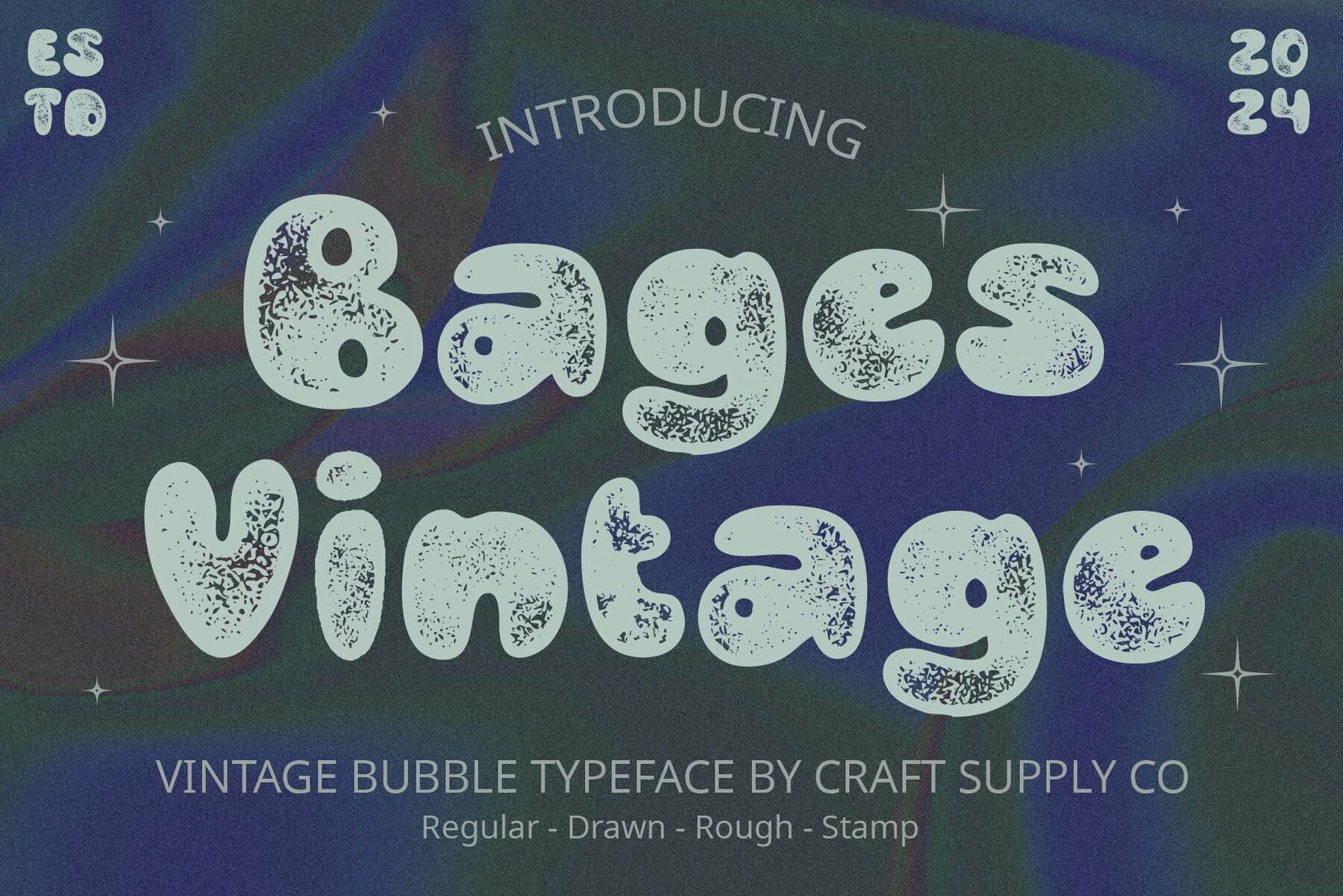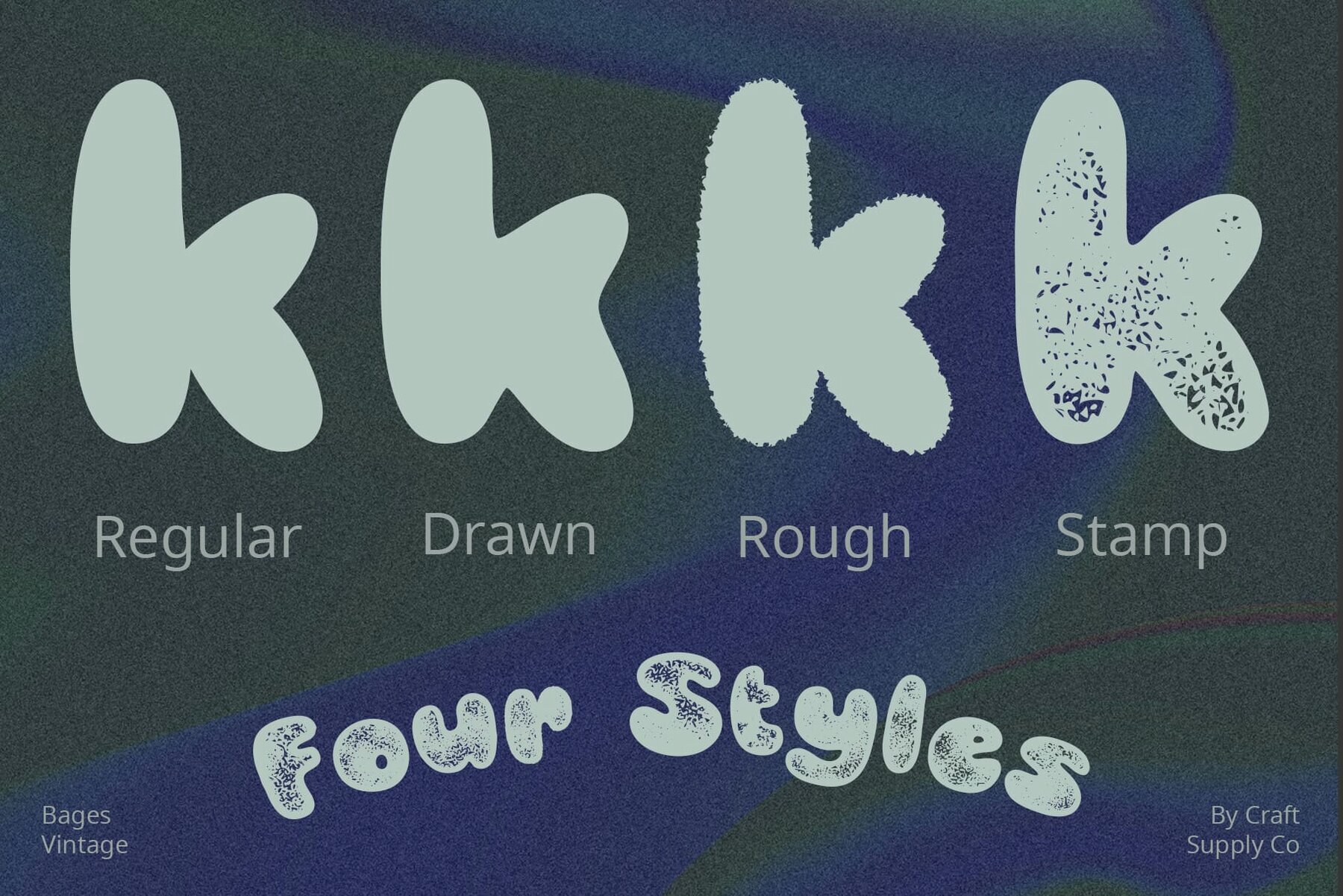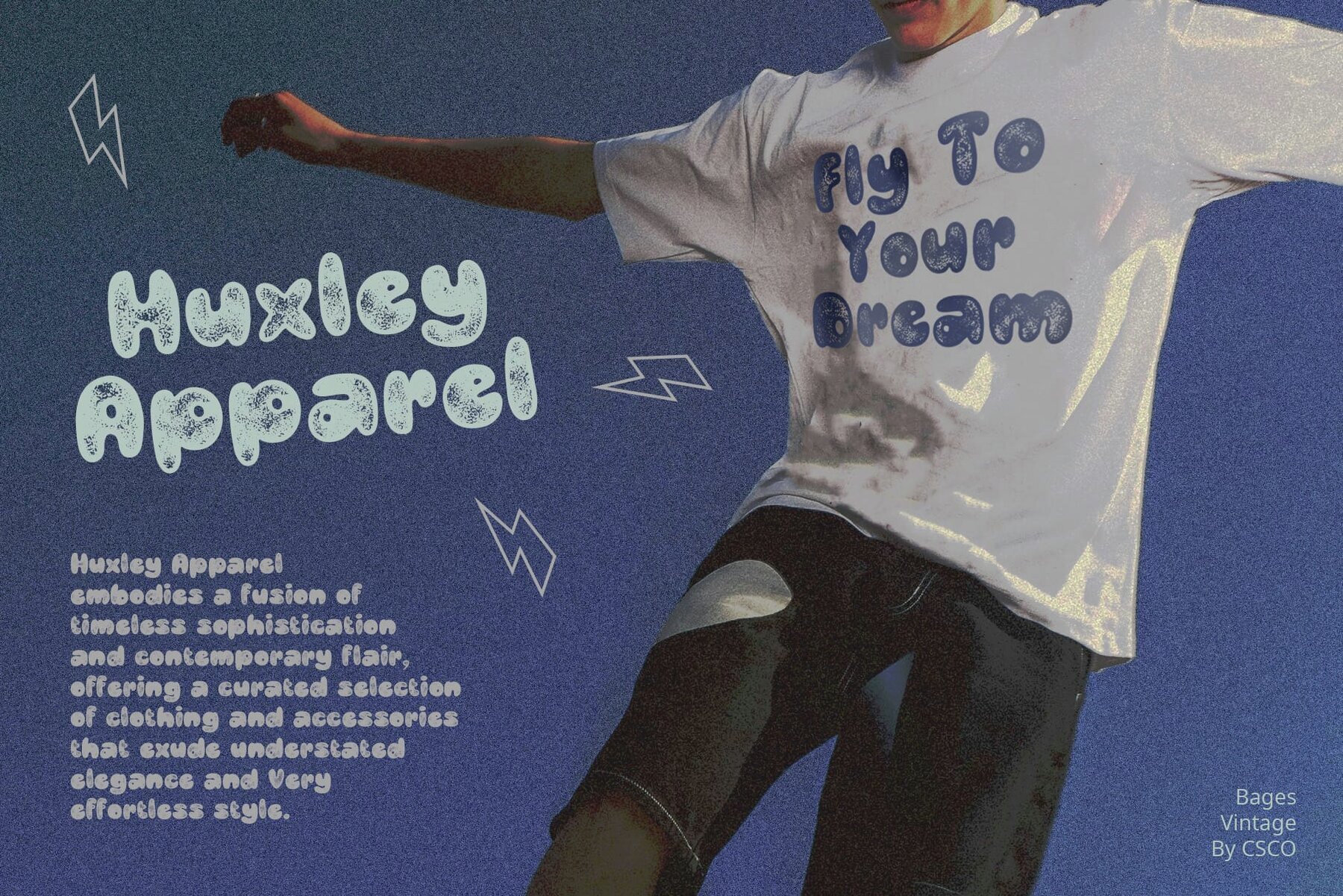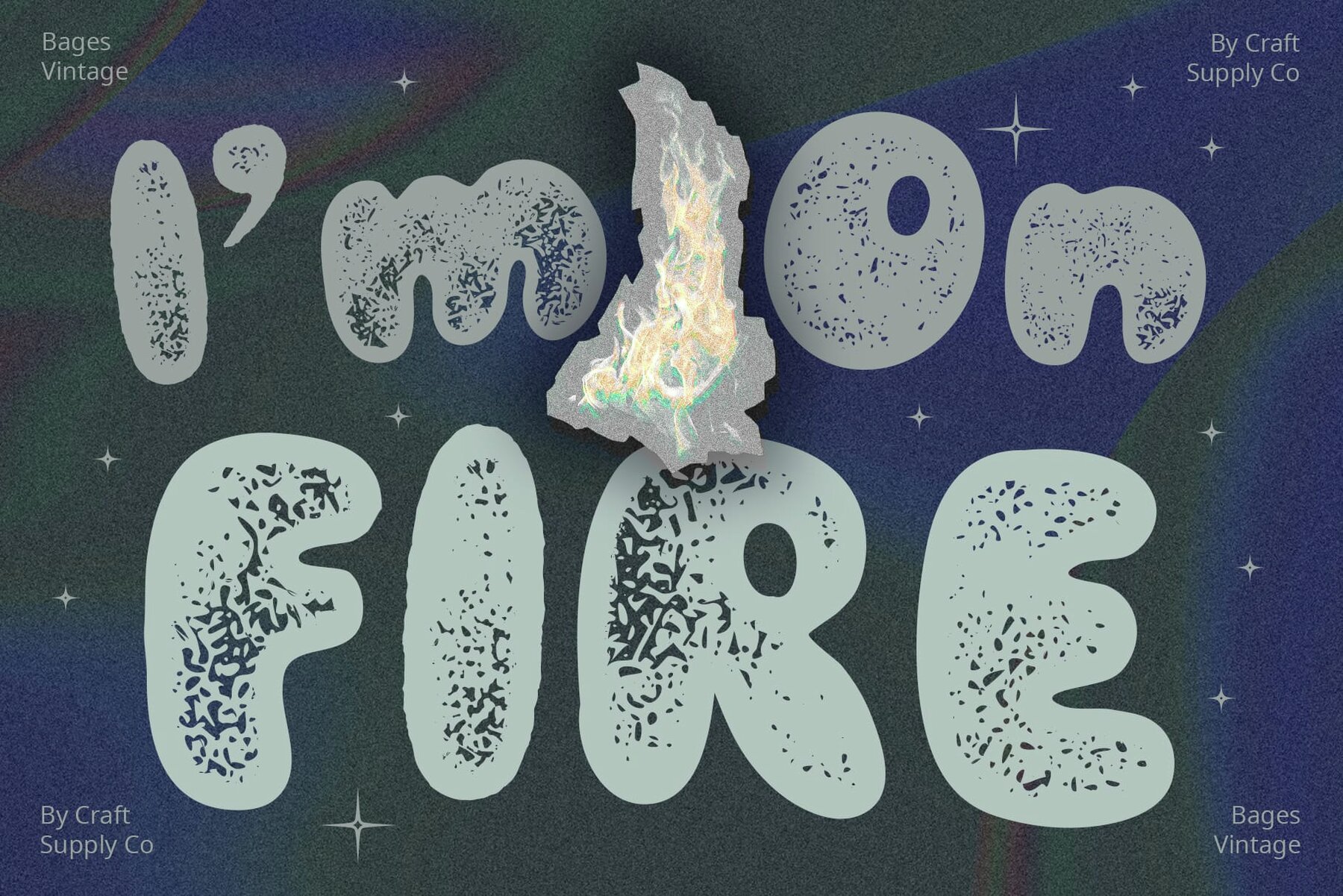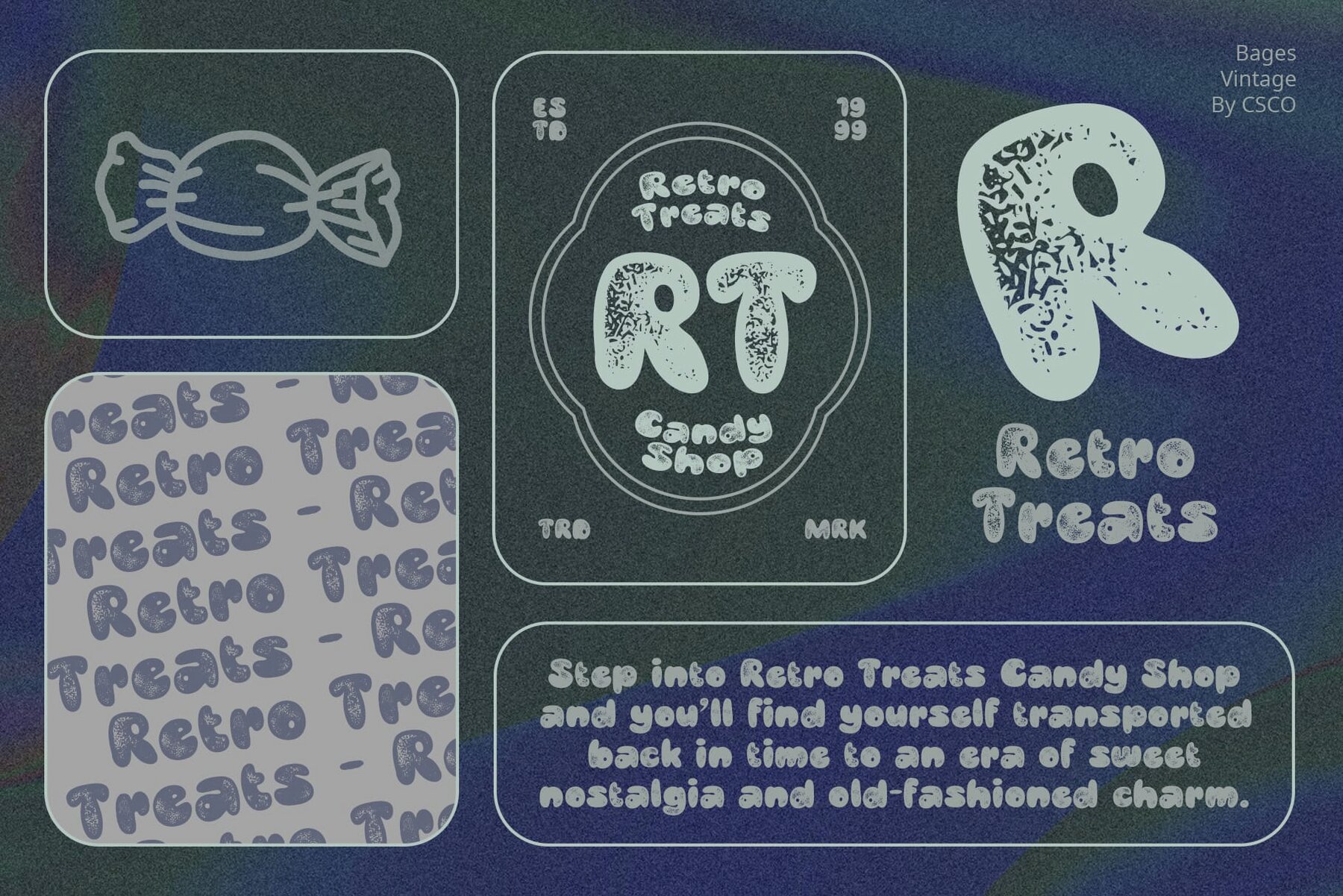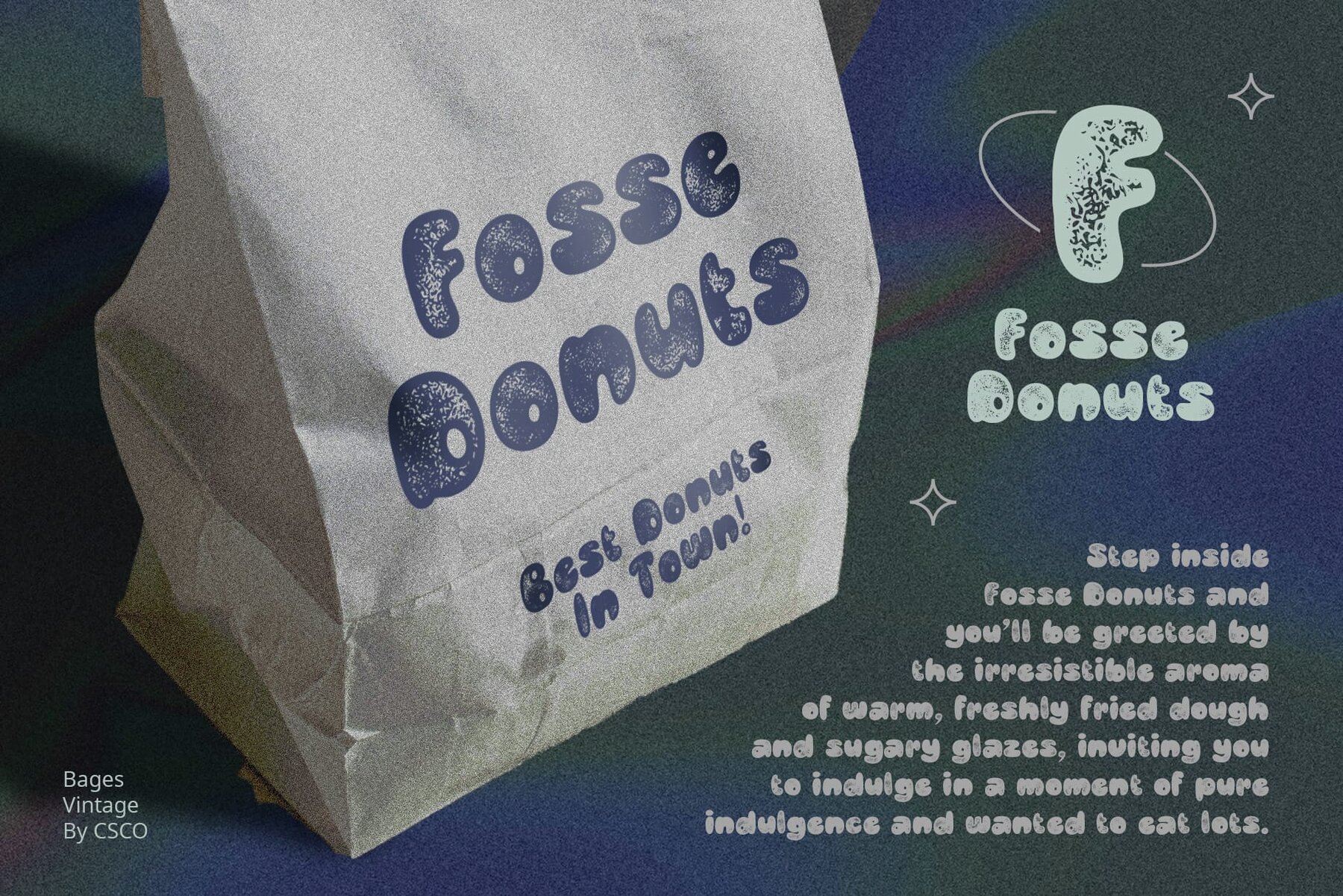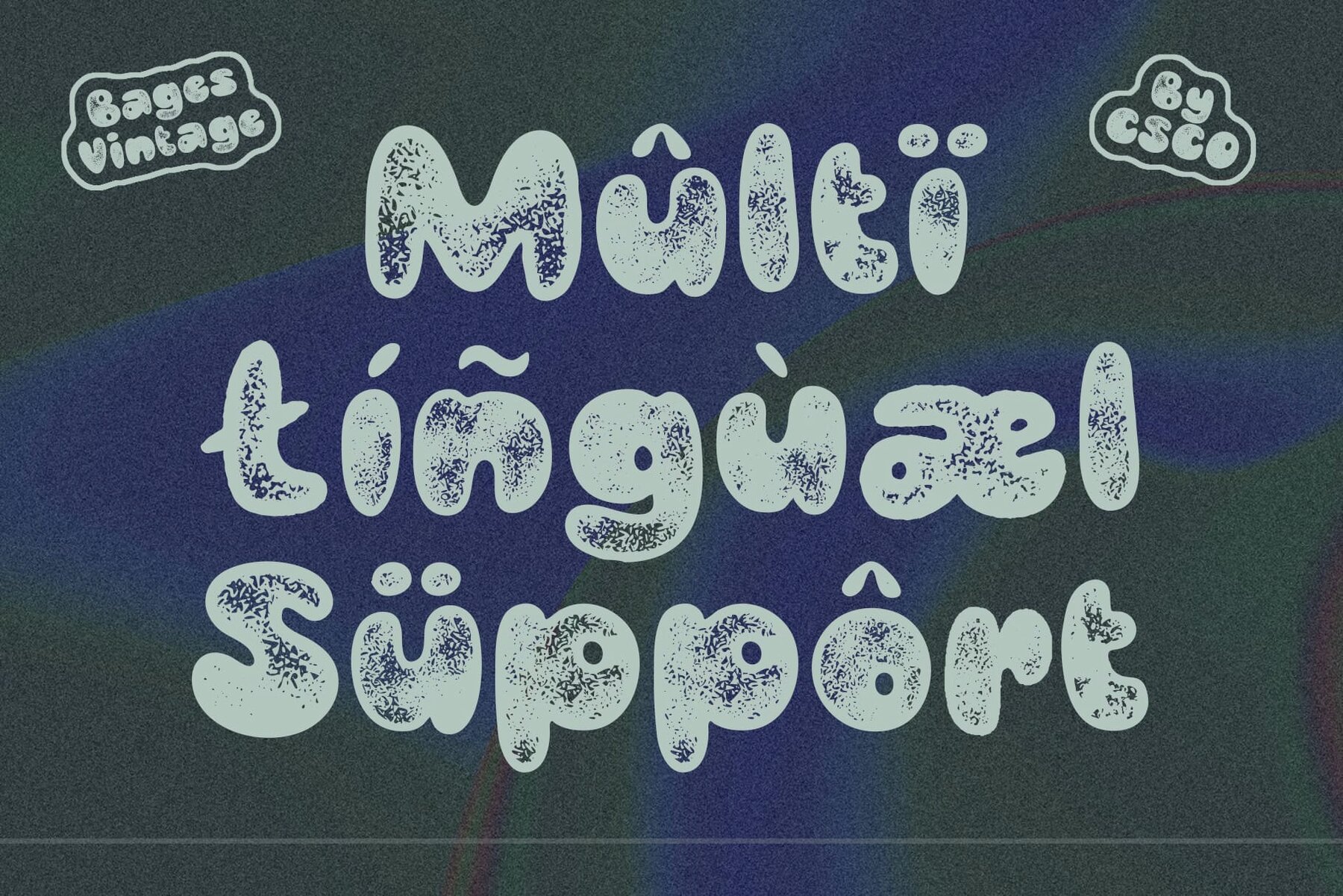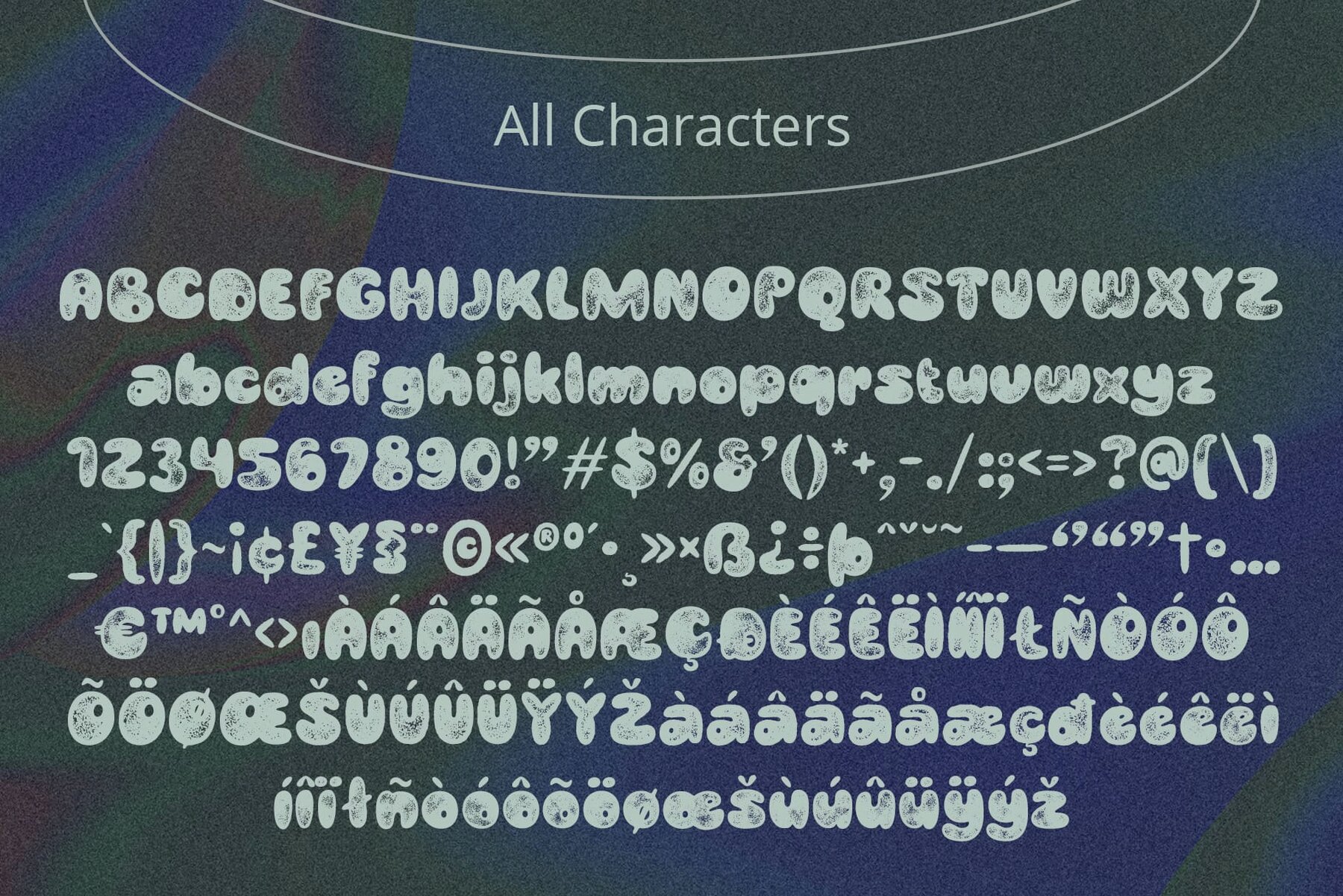
Bages Vintage Font
Bages Vintage, designed by Craft Supply Co., brings a nostalgic touch to modern design with its whimsical balloon forms and rough vintage appeal. No specialized software is needed to utilize this typeface. For any inquiries or assistance, please don't hesitate to get in touch. We appreciate your support in making your creative projects shine! Best regards, Craft Supply Co.Bages Vintage: Embracing Retro Vibes with Balloon Forms
Unique Features of Bages Vintage
Included Styles